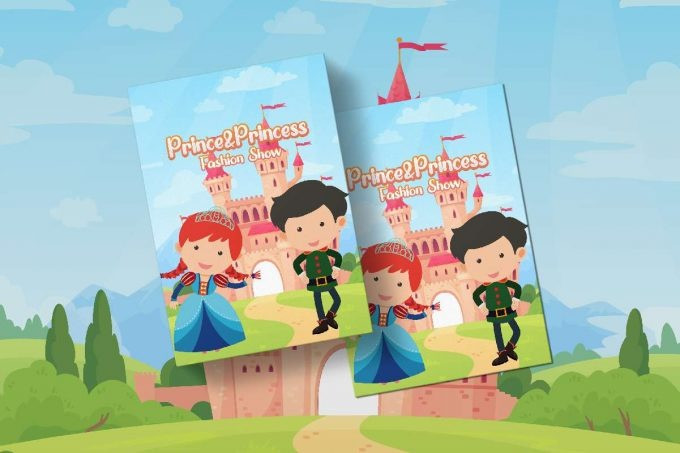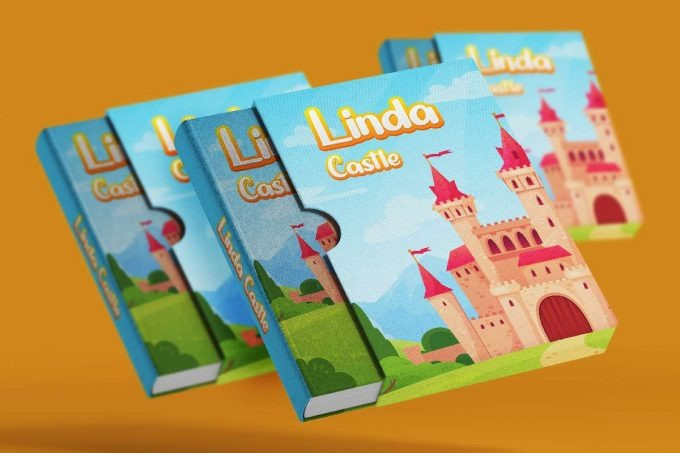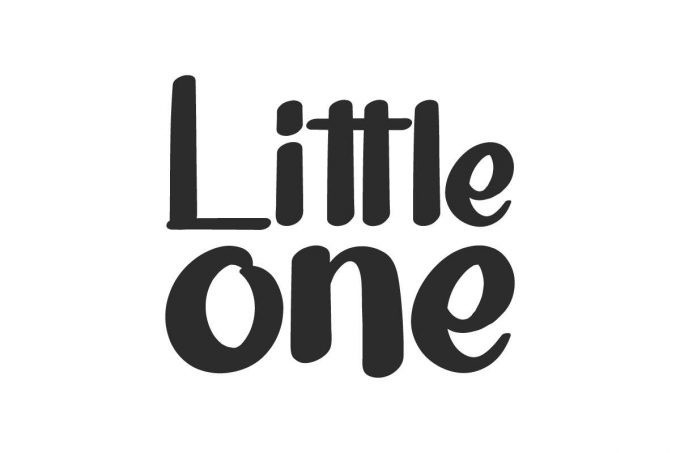
Little One Font
Little One Display Font is a playful handwriting font by NihStudio. Try the font by typing your own text below. Please note that the test font below is a demo file, so some specimens/ characters will not show up.
Little One Font will be great for any projects (require extended license) including : branding, logo, school, signage, stationery, video etc. The theme style of the font is cartoon, funny, and casual brush style. The font will be match for this typeface: animation, houseware, movie, school, etc